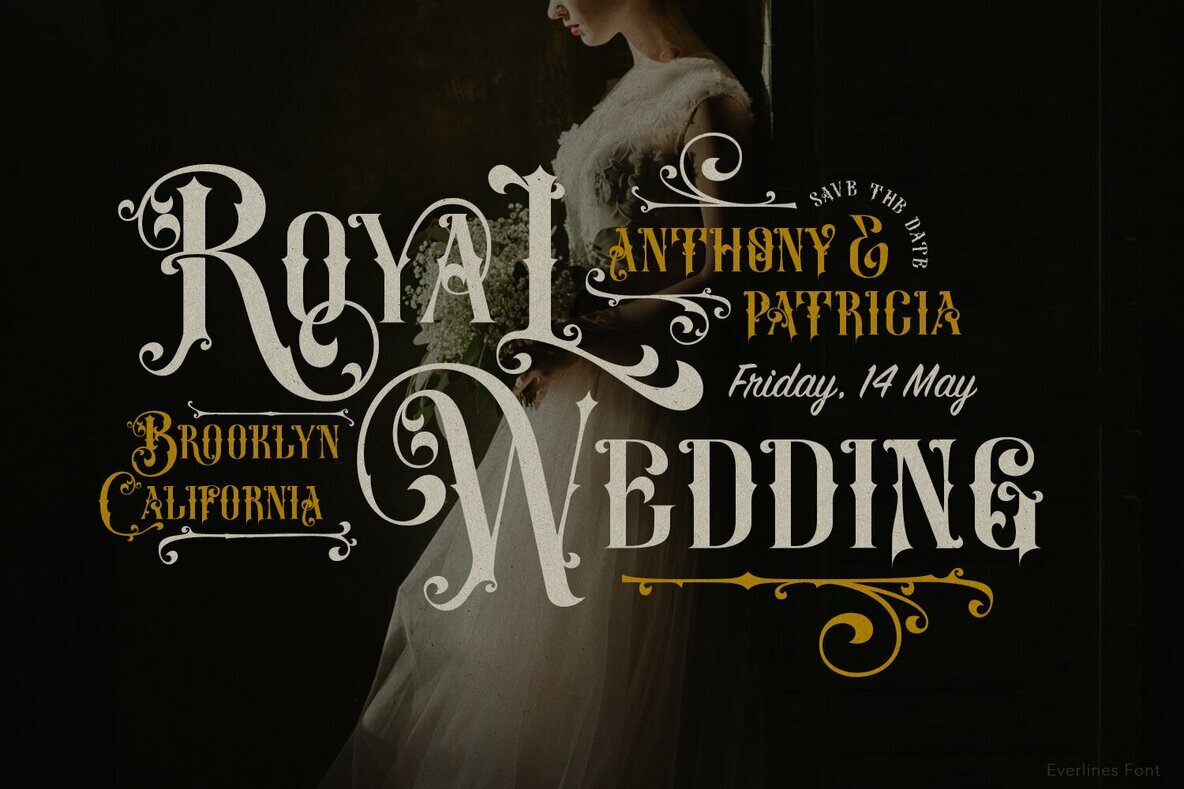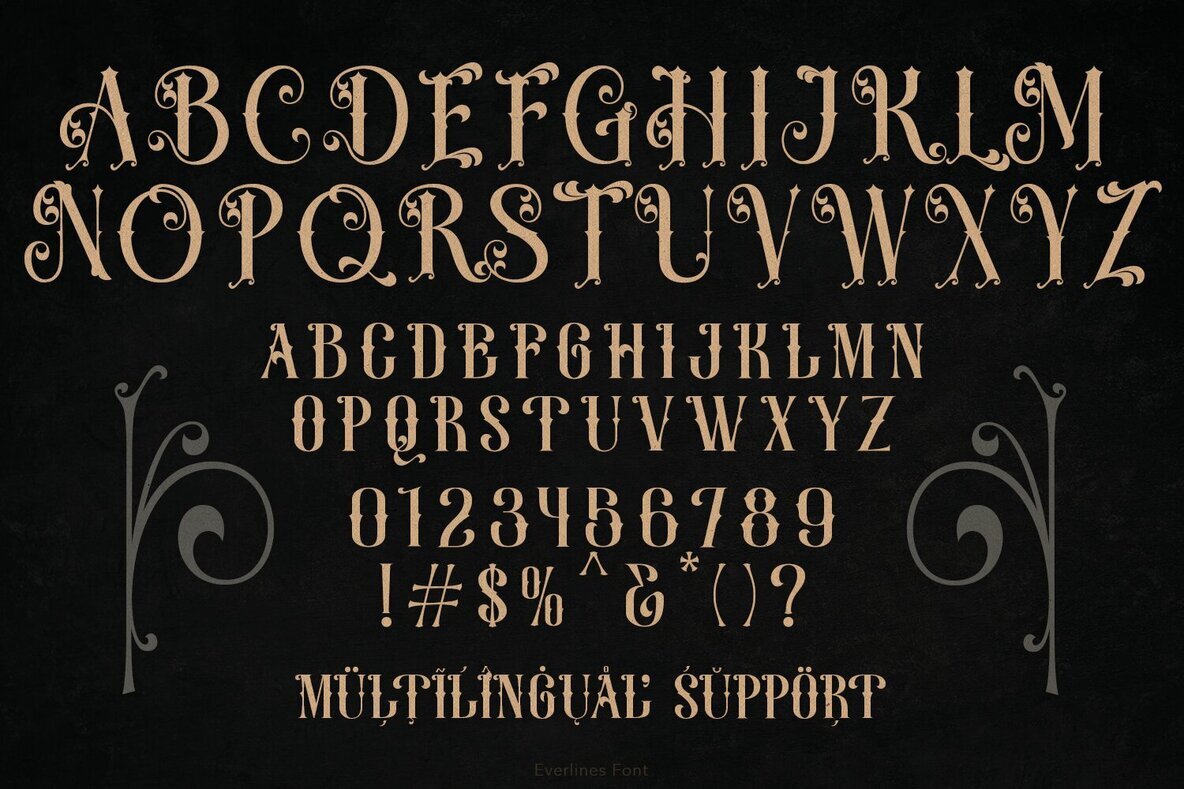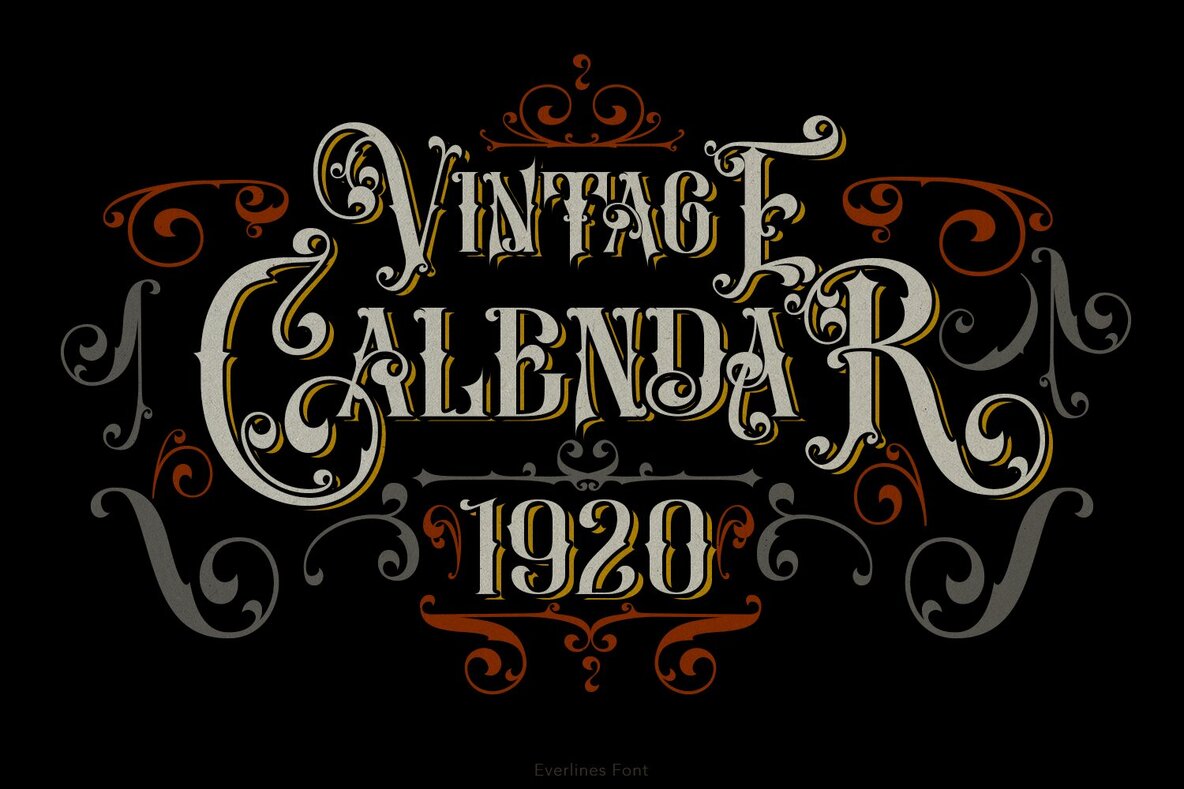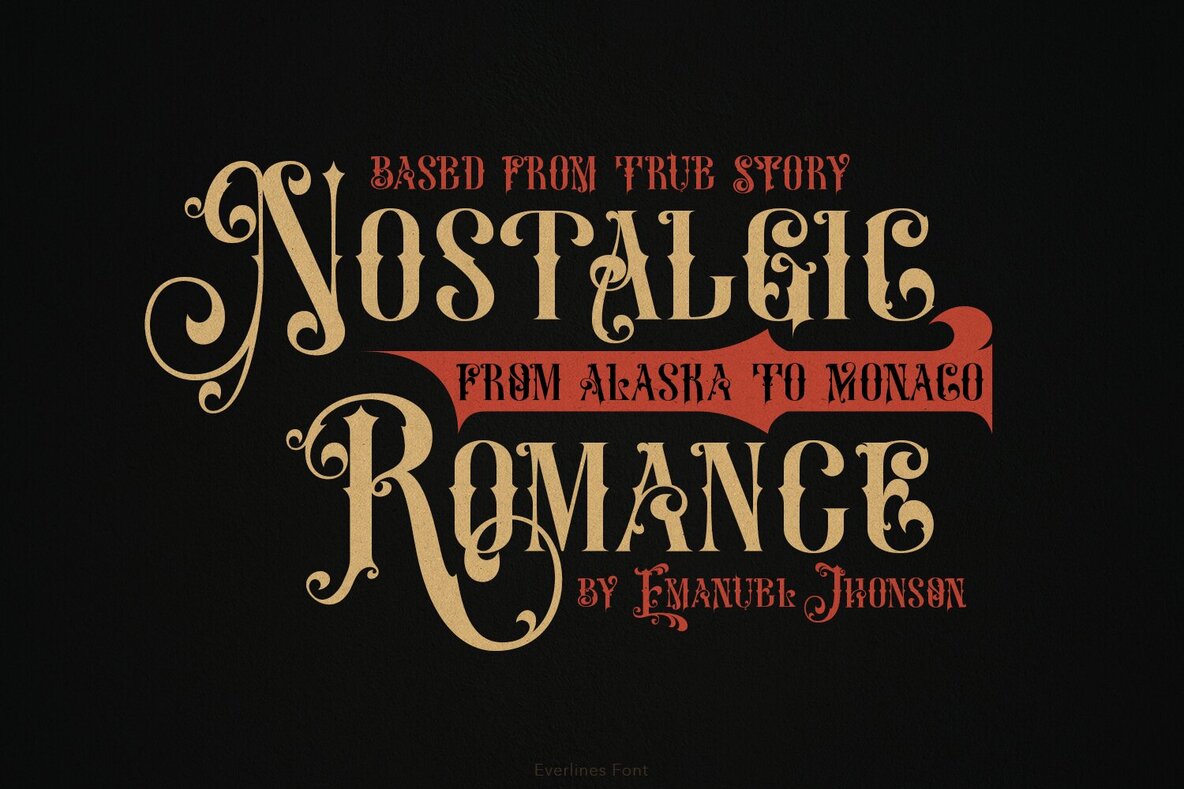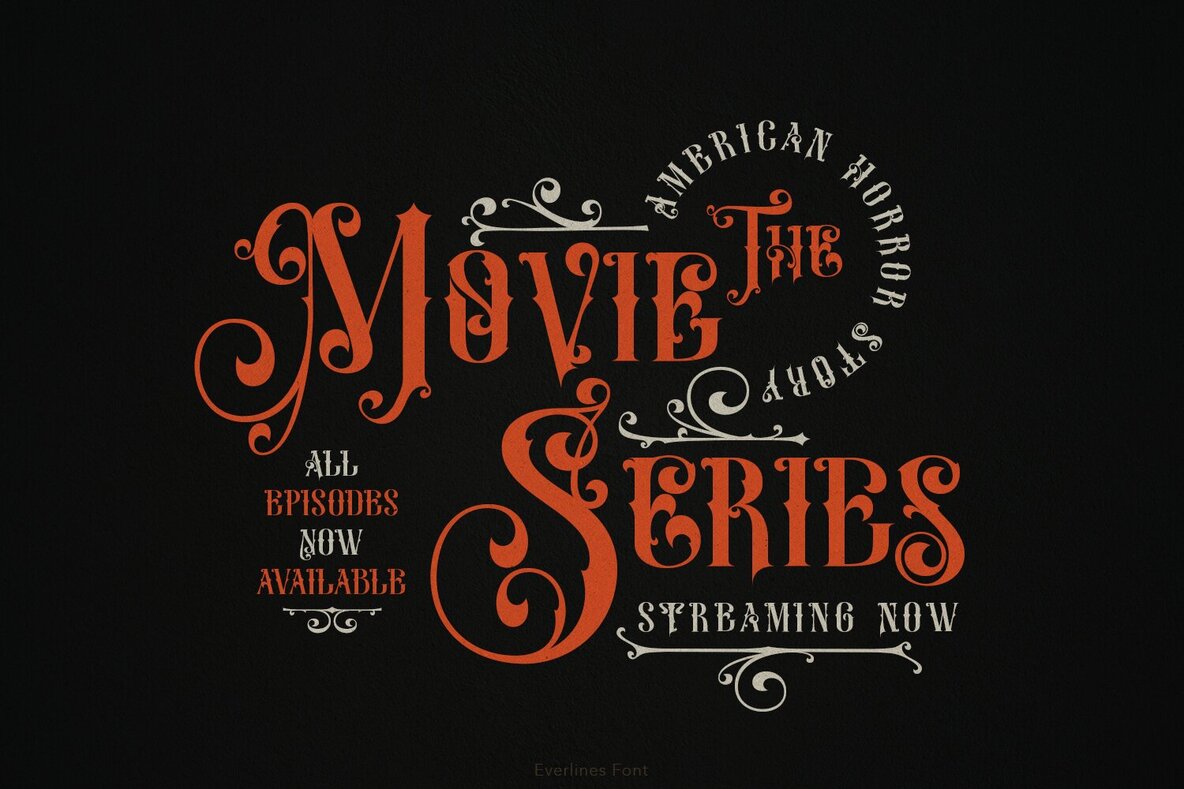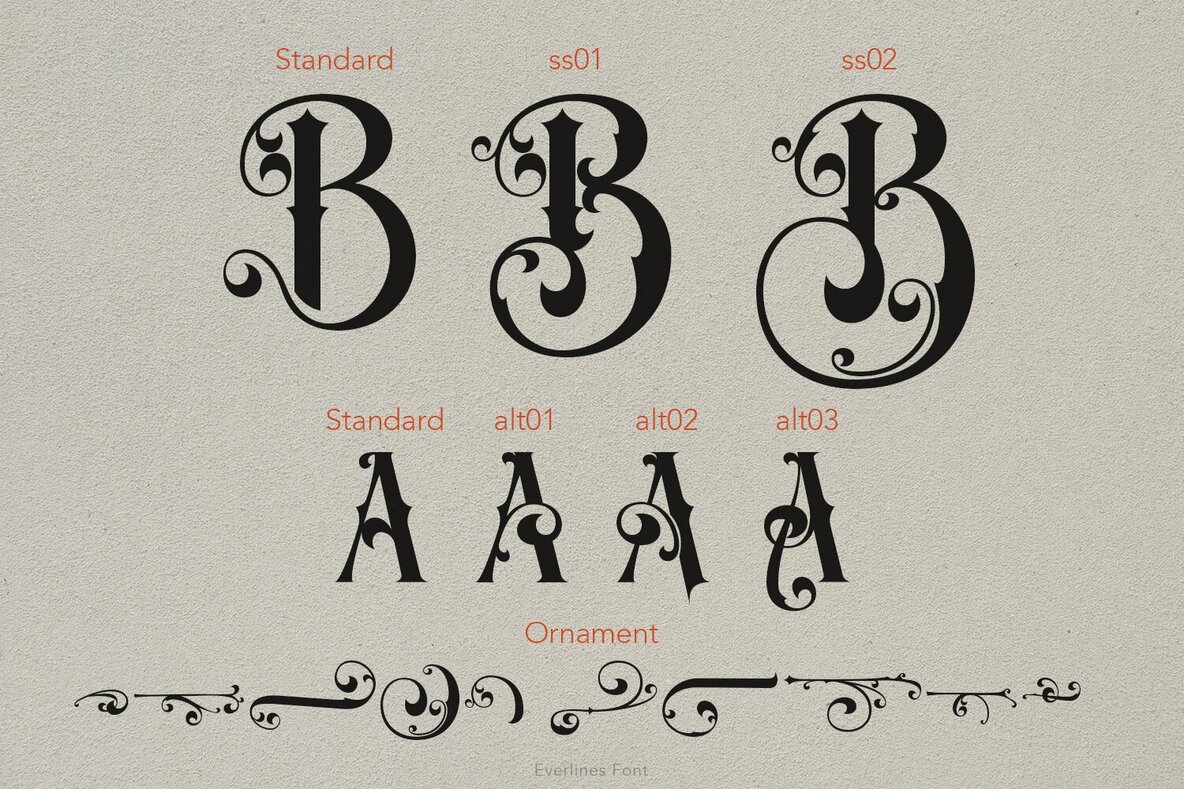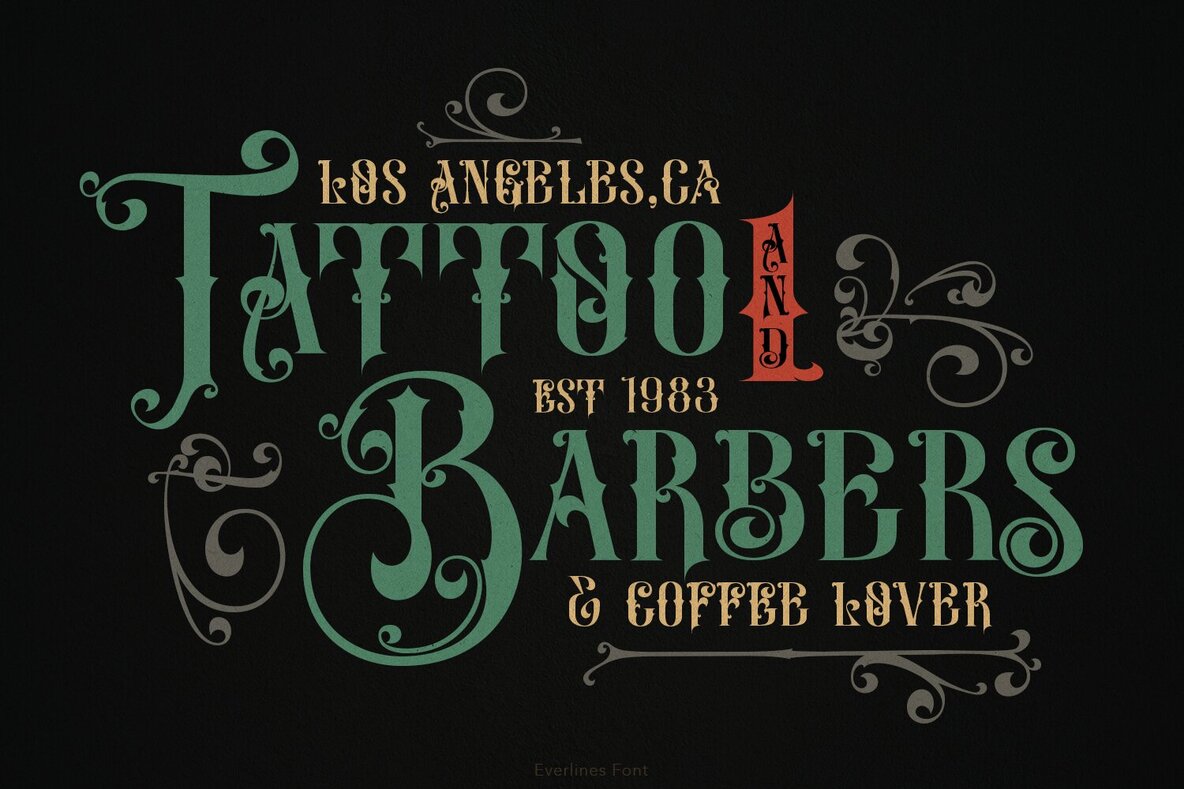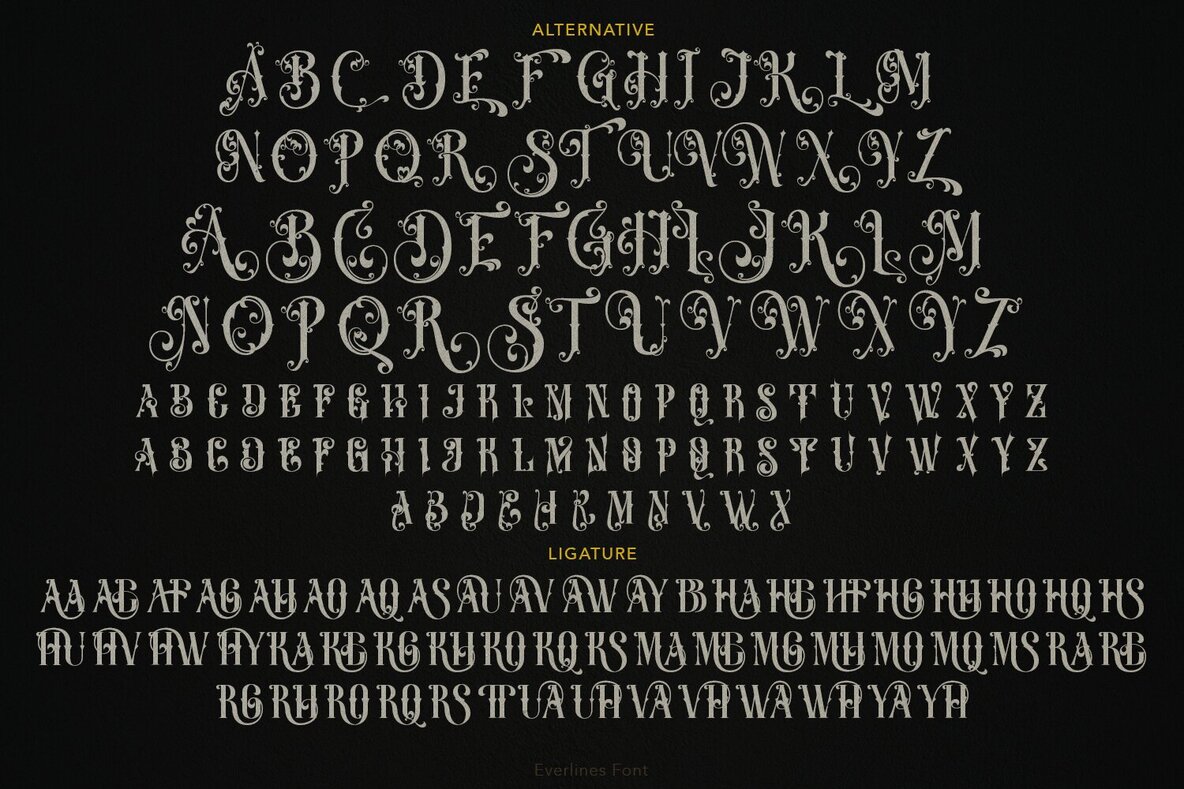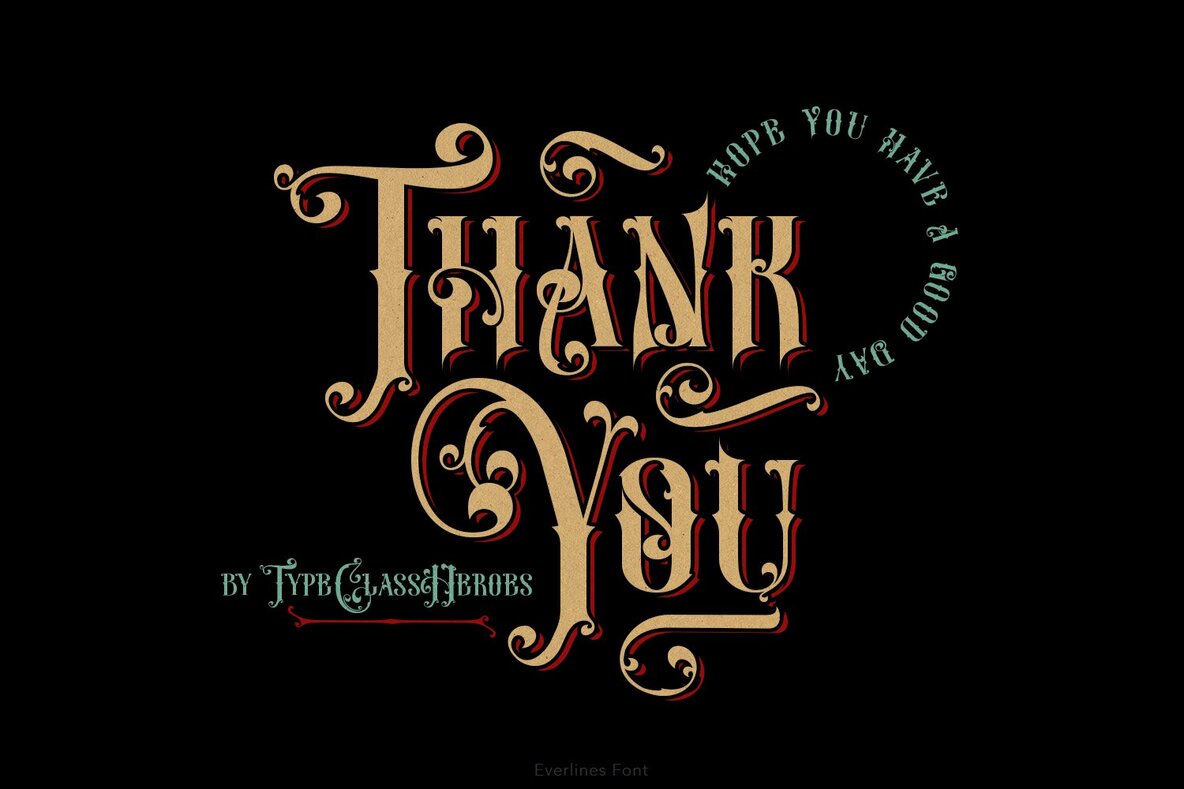
Everlines Font
Everlines from Type Class Heroes is an all-caps font that exudes elegance with its classic feel. Inspired by the typography of the 19th century, it draws from old fancy lettering, vintage illustration, and Victorian calligraphy styles. The font is ideal for a variety of display purposes, offering a vintage and classic style with touches of elegance and luxury. Use it for book covers, product labels, logos, badges, drink bottles, tattoo shops, coffee shops, fashion products, wedding invitations, and more.Everlines: Elegant All-Caps Font with Classic 19th Century Inspiration
Perfect for Vintage and Classic Display Needs